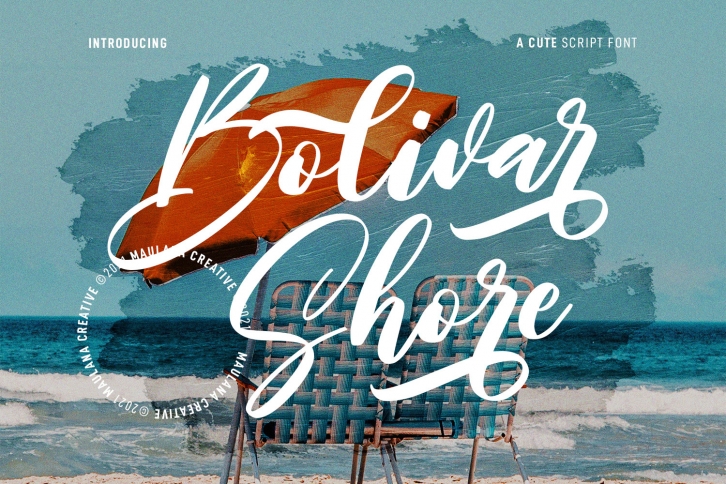
Bolivar Shore is a cute and fancy modern script font that will give you an extra creative touch. This font is good for logo design, social media posts, movie and book titles, and many more. Make stunning work with Bolivar Shore font.